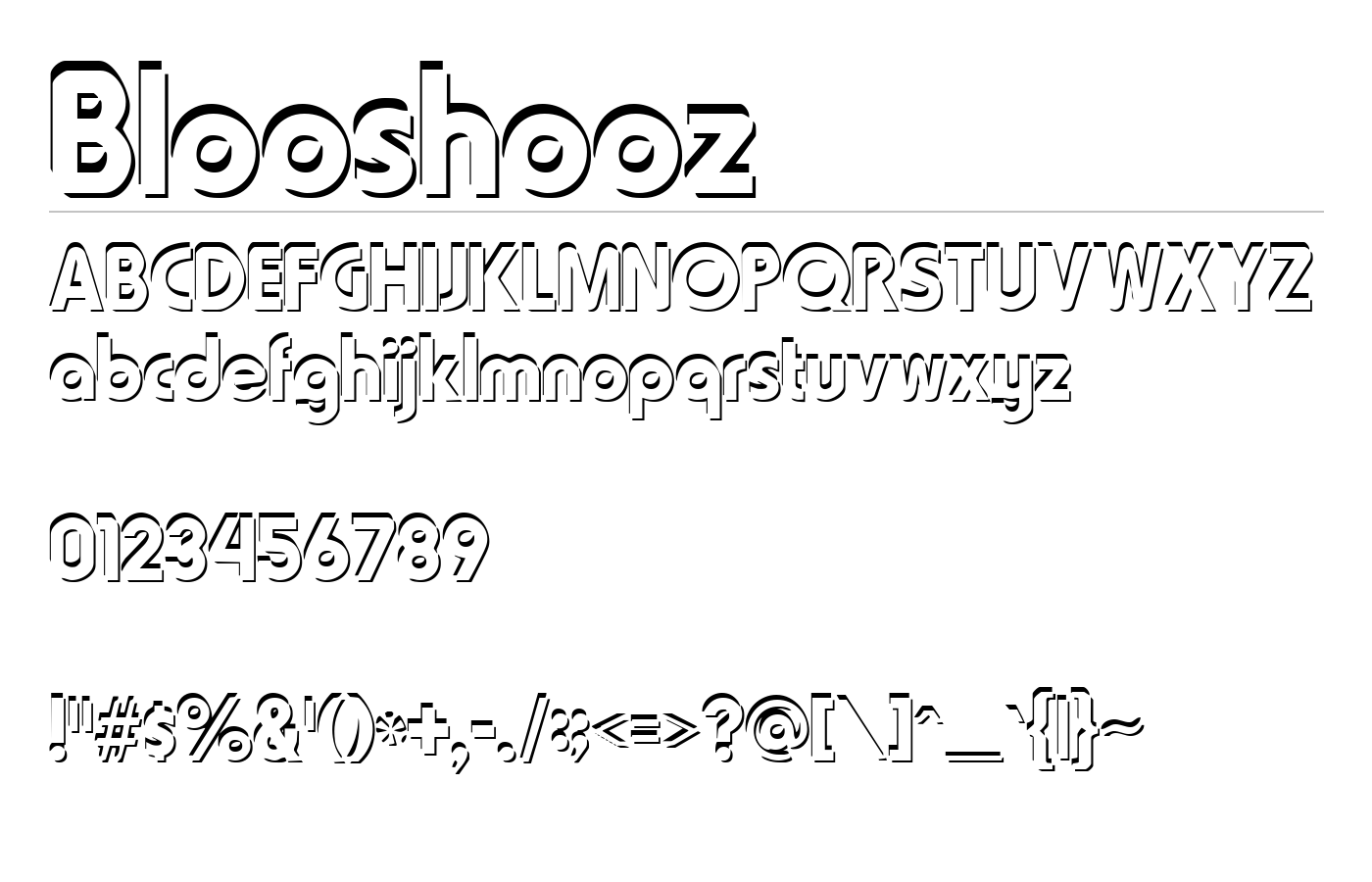
Blooshooz is a modern sans serif font with a bold, geometric structure and a distinctive layered shadow effect that adds depth and visual interest. Its clean lines combined with playful shadowing give it a dynamic and contemporary feel, making it perfect for eye-catching headlines, logos, and creative branding projects where a fun yet strong typographic presence is desired. This font works well in designs that aim to be both stylish and approachable with a unique twist.
Blooshooz Font
About Blooshooz Font